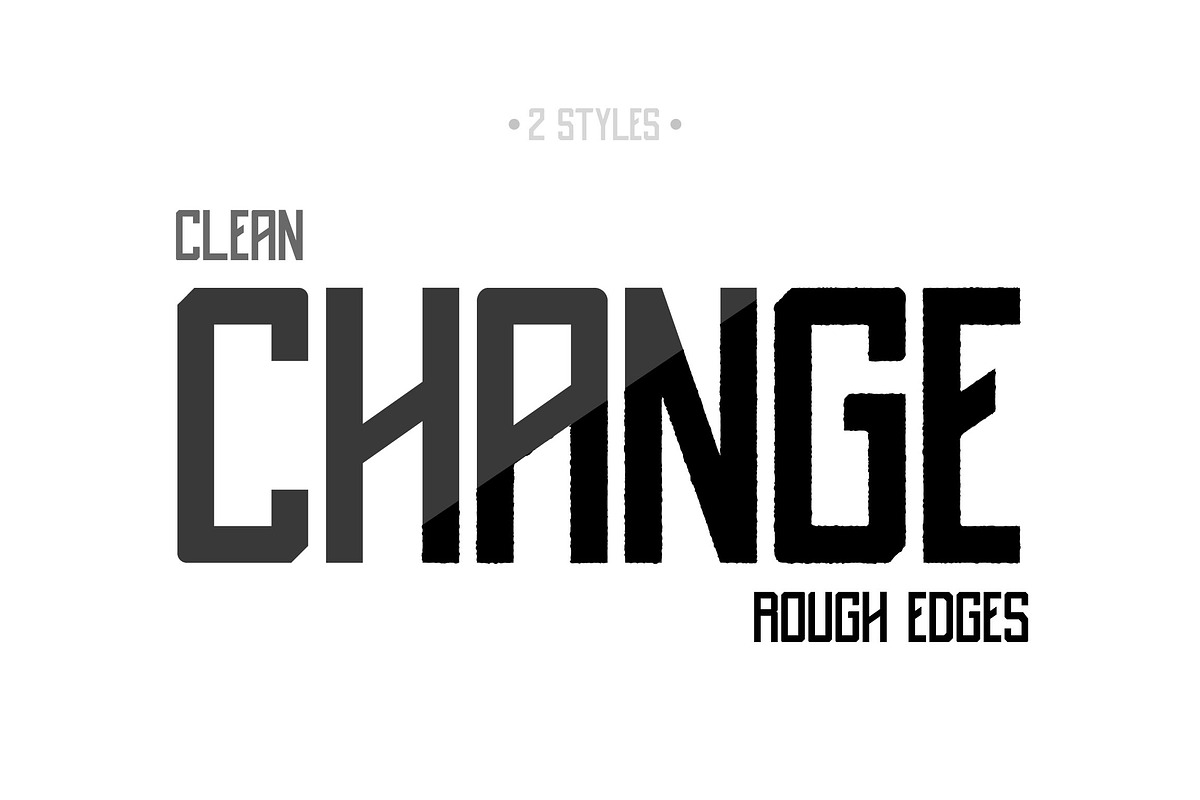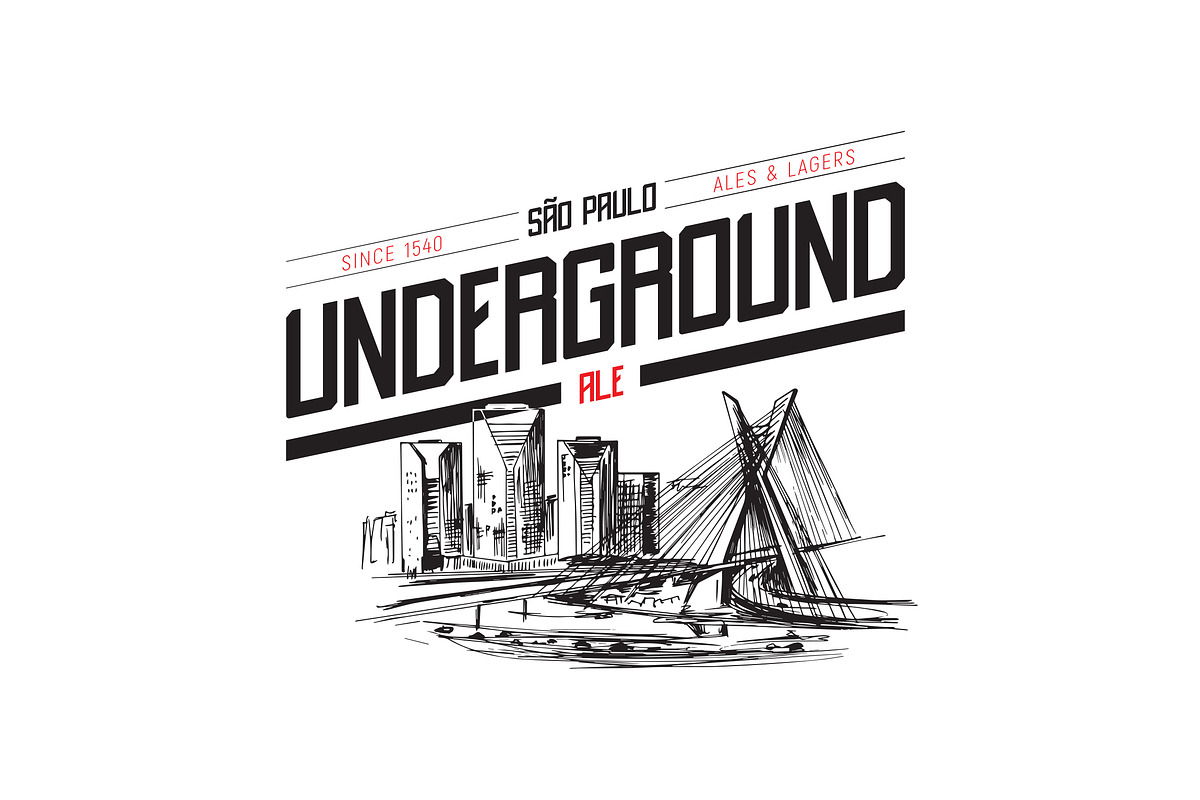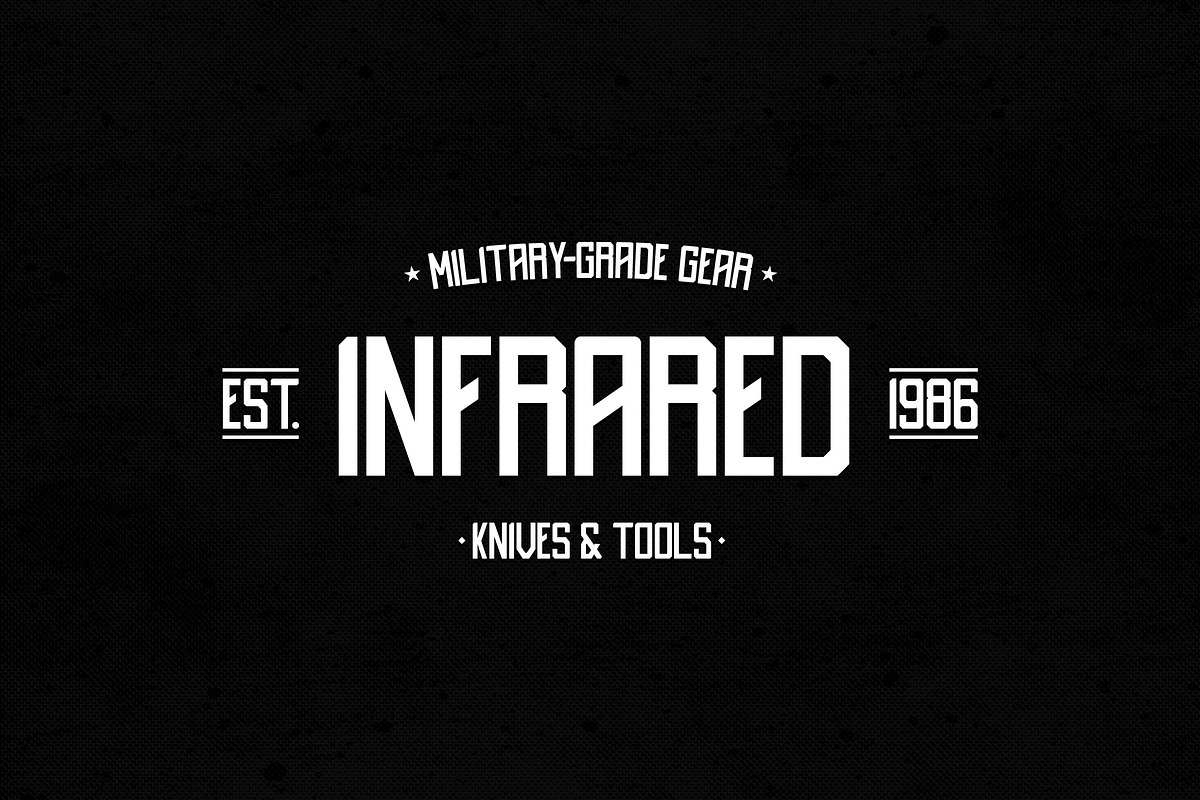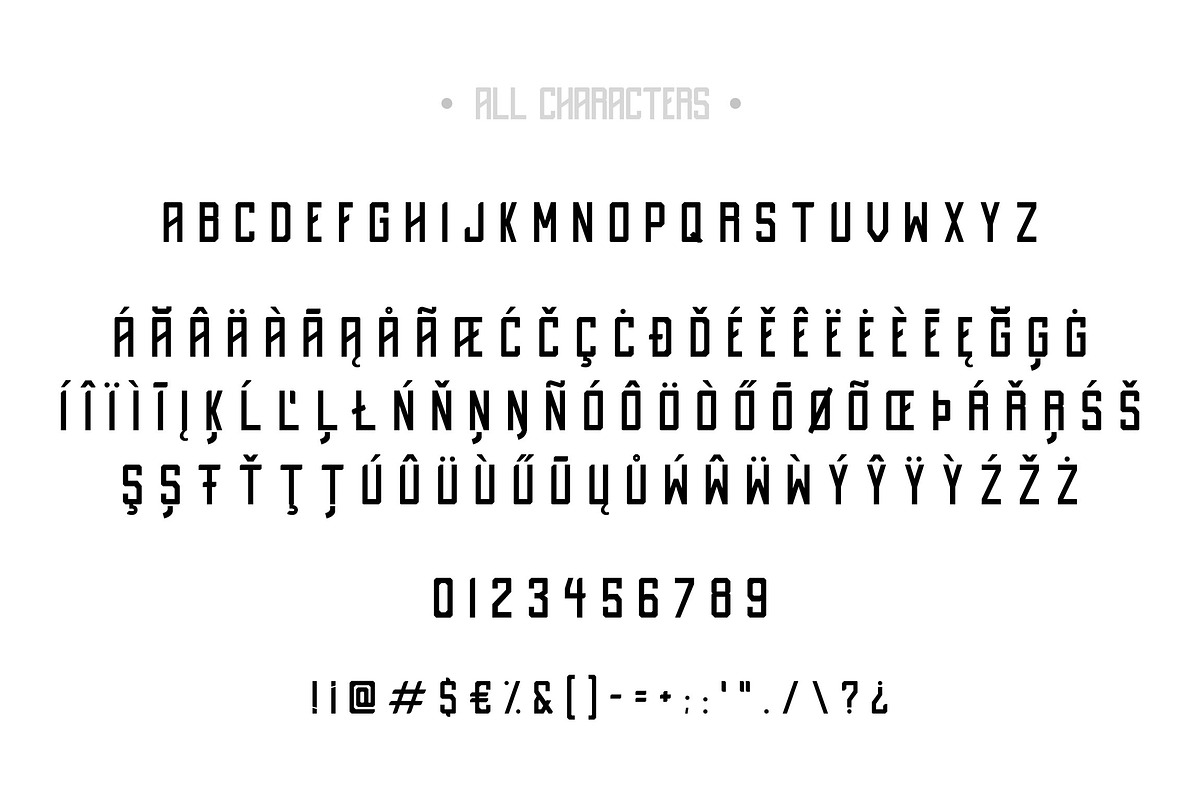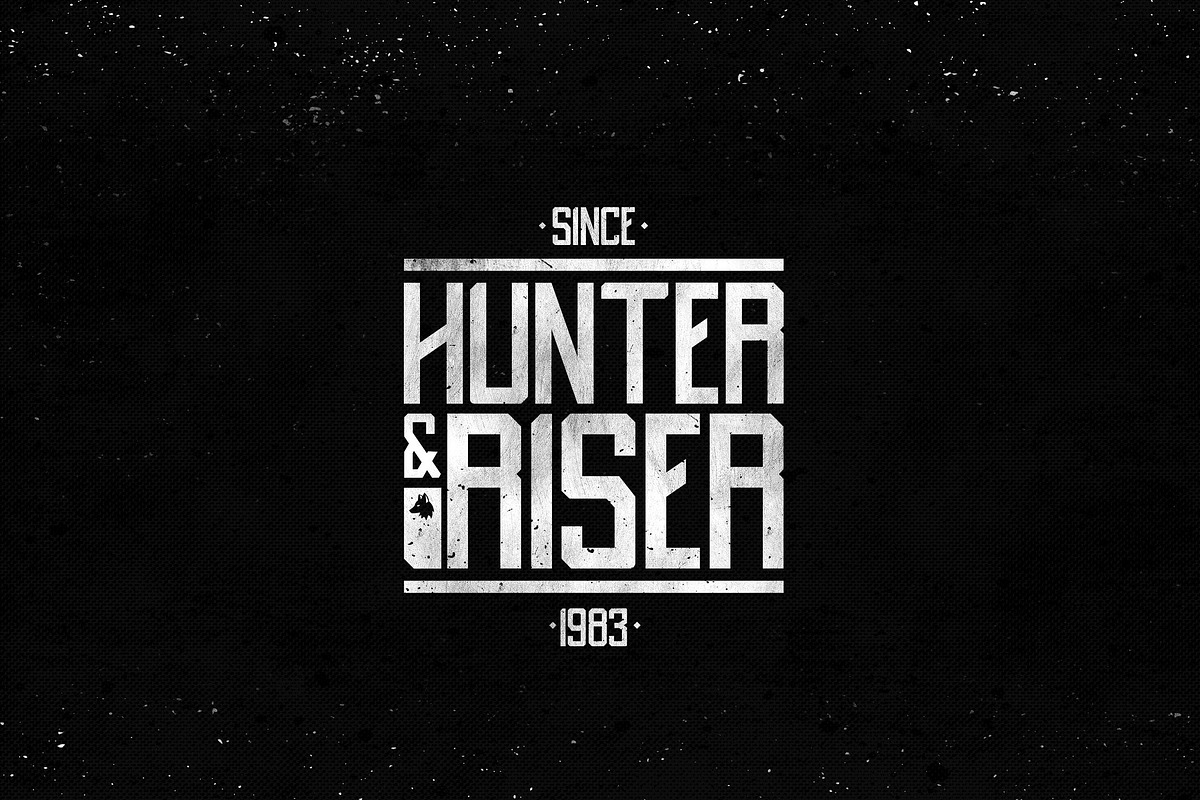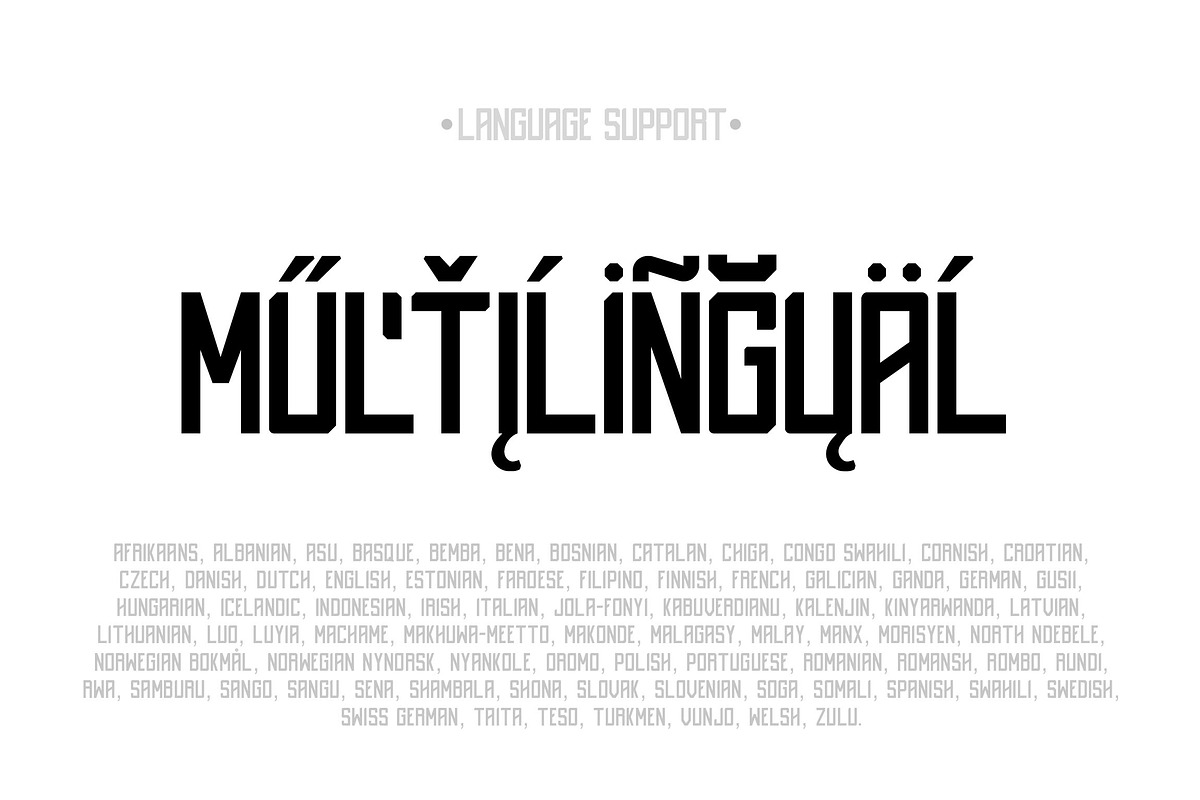
Destrukt - Sans Serif Font- 2 Styles
Destrukt is an all caps modern sans serif font perfect for logo design, packing, badges, etc. It comes with two styles, clean and rough edges.